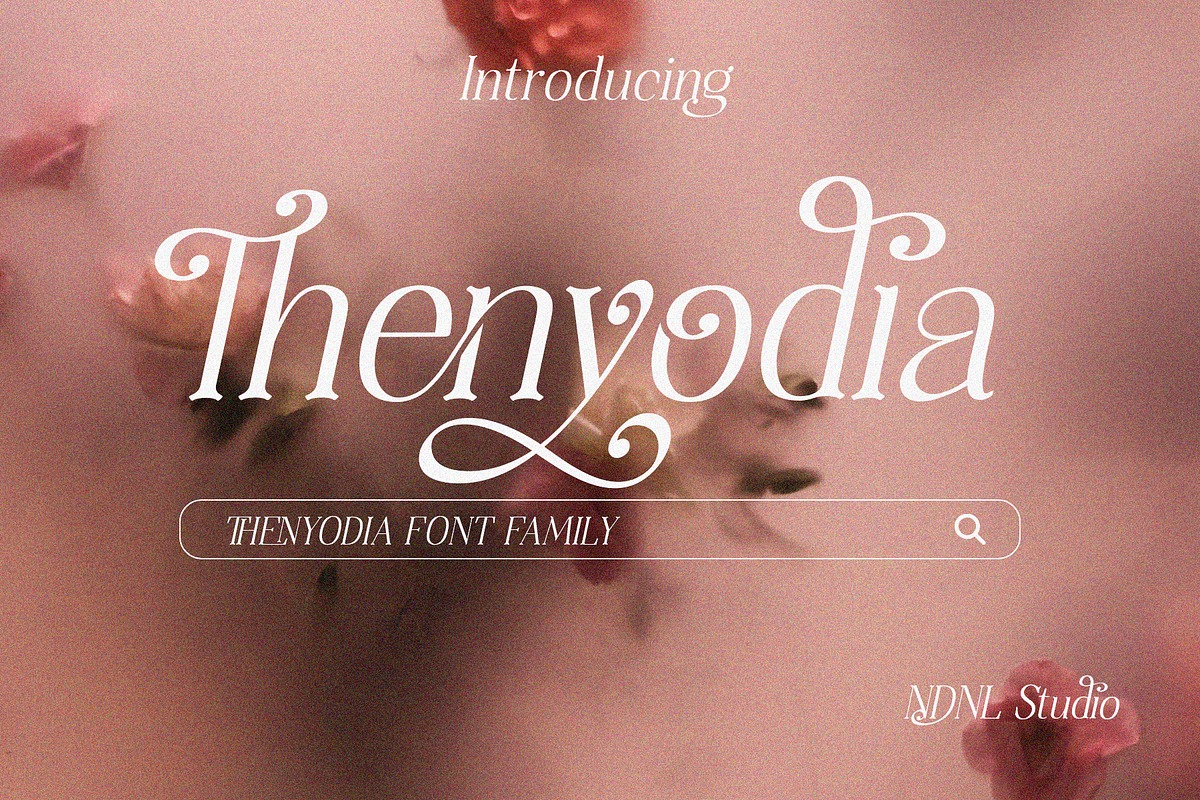
Thenyodia – Elegant Serif Font
Thenyodia – Elegant Serif Font is a clean and thoughtfully built typeface that works seamlessly for both professional branding and everyday creative uses. Thenyodia is a decorative serif typeface that expresses elegance and charm through its flowing curves and delicate swashes. Each letterform is carefully crafted to create a romantic and sophisticated atmosphere, making the typeface visually captivating.
Inspired by classic typography yet refined for modern design needs, Thenyodia works beautifully for logos, branding, wedding invitations, fashion editorials, product packaging, and stylish headlines. This typeface adds a graceful and expressive touch to any creative project.